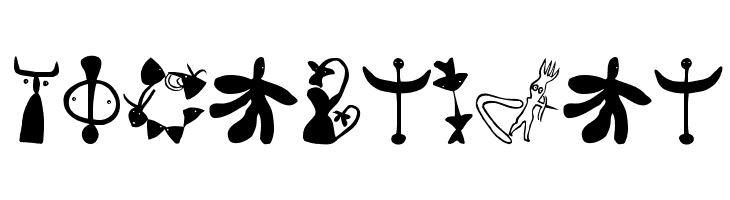
An artistic, hand-drawn font with bold, irregular strokes and geometric elements.
A bold, hand-drawn font with intricate patterns and a whimsical style.
Illustrative, ethnographic font with cultural motifs and figures.
Pictorial, ethnographic font with illustrative, symbolic glyphs.